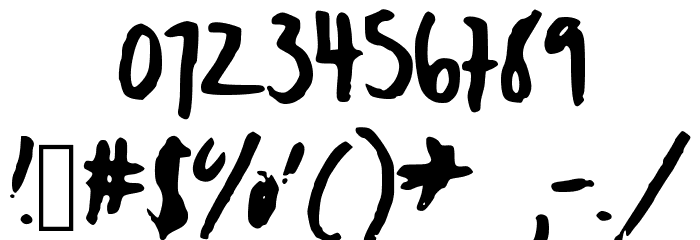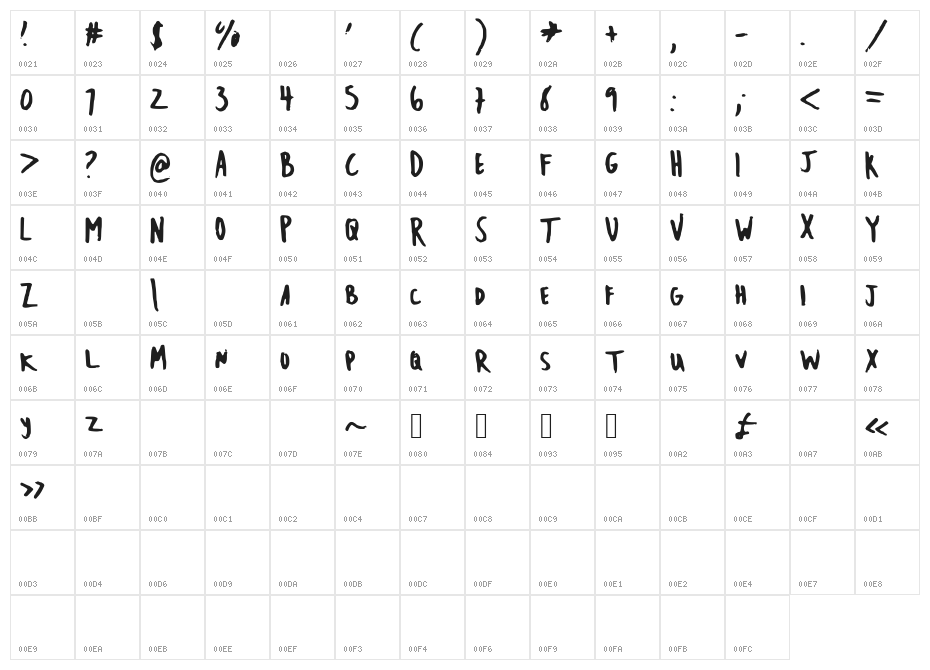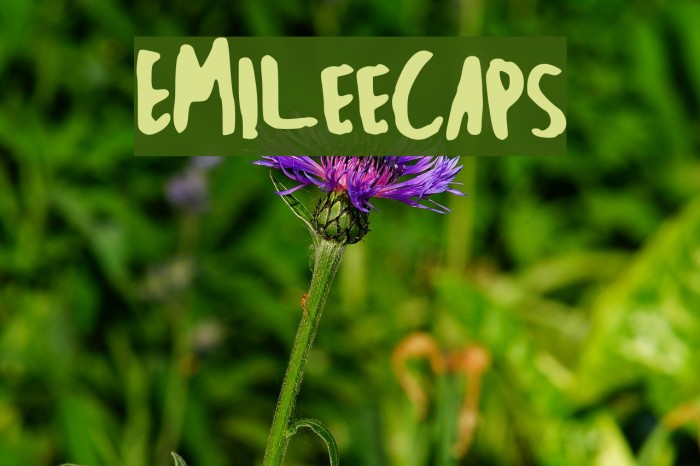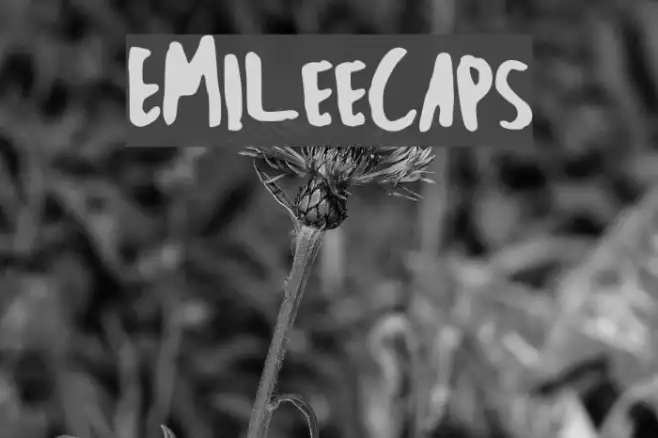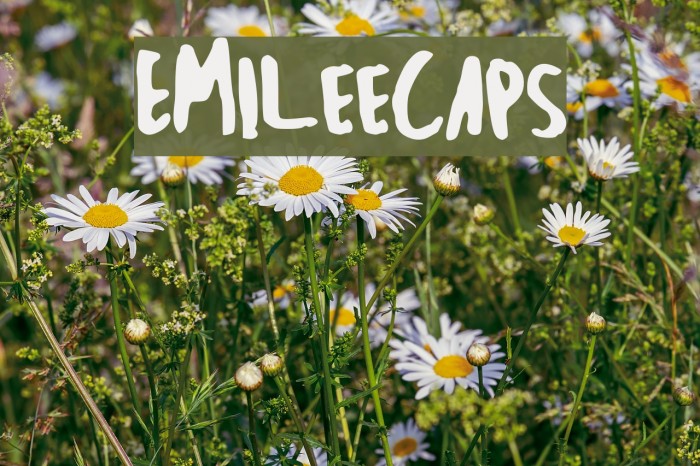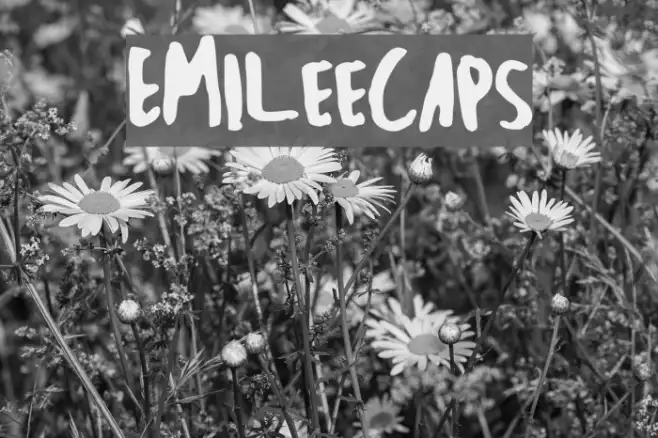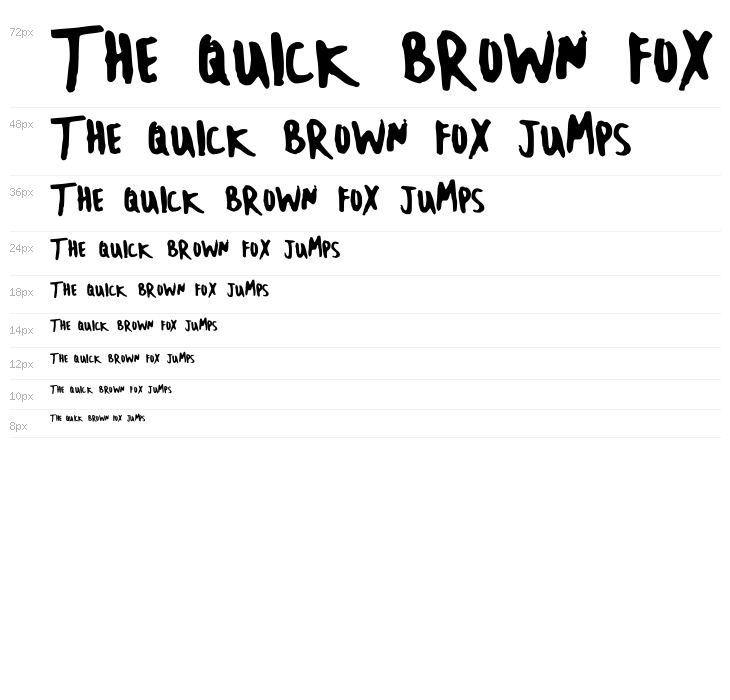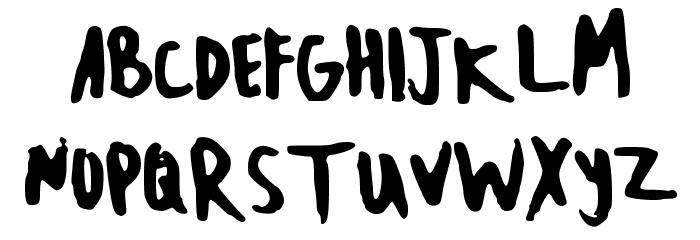
EmileeCaps Font
EmileeCaps Description
This font features a bold and expressive handwritten style, characterized by its irregular and playful strokes. The letters have a casual and artistic appearance, with varying thickness that adds a dynamic feel to the text. The uppercase and lowercase letters maintain a consistent style, while the numbers and special characters complement the overall design. The font's organic and freeform nature makes it ideal for projects that require a personal and creative touch.